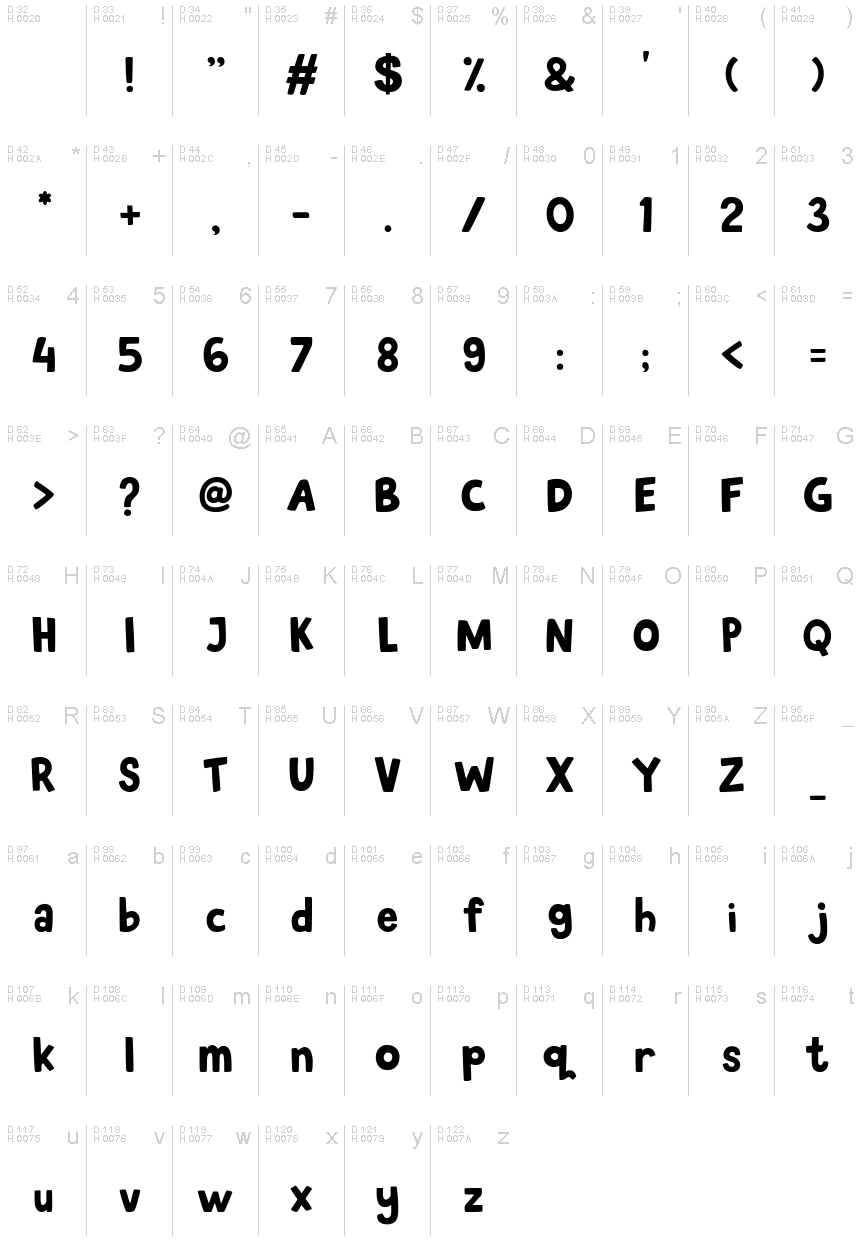
Gemes Font
Gemes Font, a captivating display typeface crafted by Muhammad Ali Mudzofar, immediately commands attention with its bold, cartoon-inspired aesthetic.
This font exudes a playful and whimsical energy, perfectly suited for a wide range of design applications, from vibrant branding and packaging to attention-grabbing headlines and advertisements. The thick, exaggerated letterforms and dynamic curves seamlessly blend traditional cartoon influences with a modern, eye-catching flair. Gemes Font's versatility shines through, making it an ideal choice for projects that seek to convey a sense of playfulness, youthfulness, or a bold, visually striking appeal.
Whether in digital or print mediums, this font has the power to elevate designs, leaving a lasting impression on audiences with its distinctive and engaging personality.